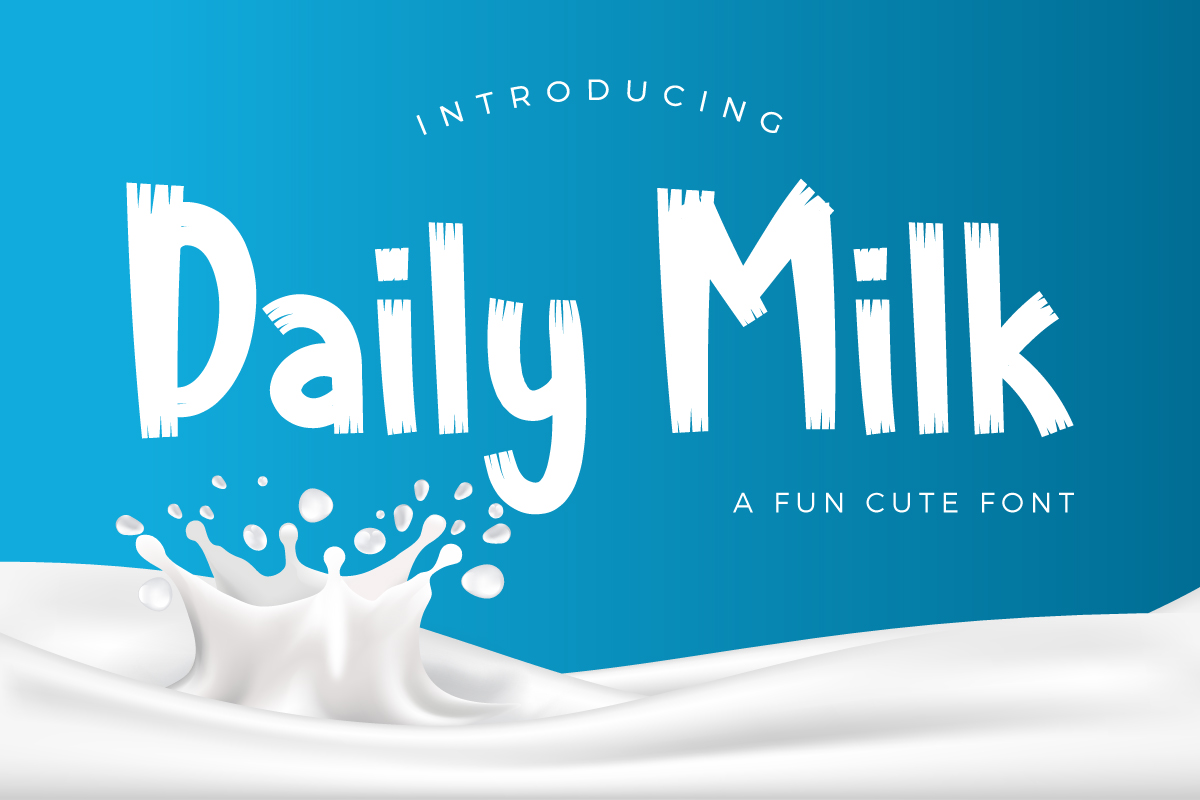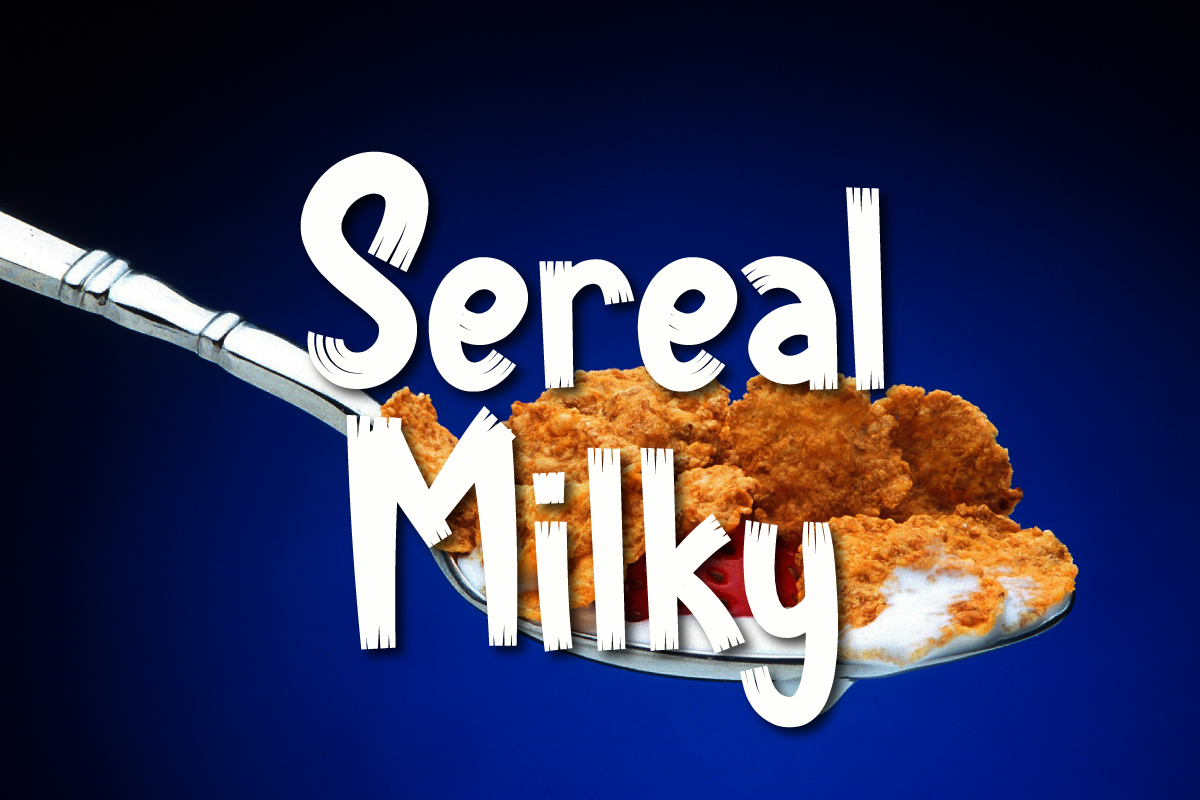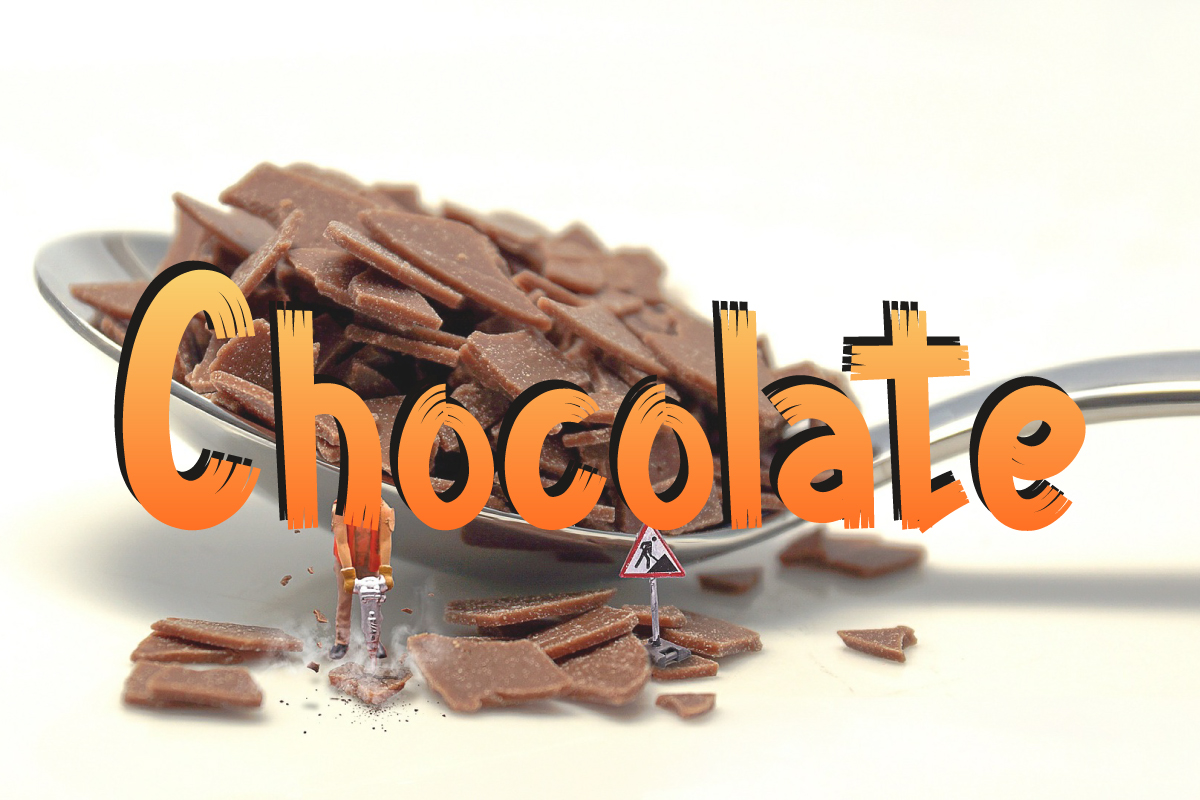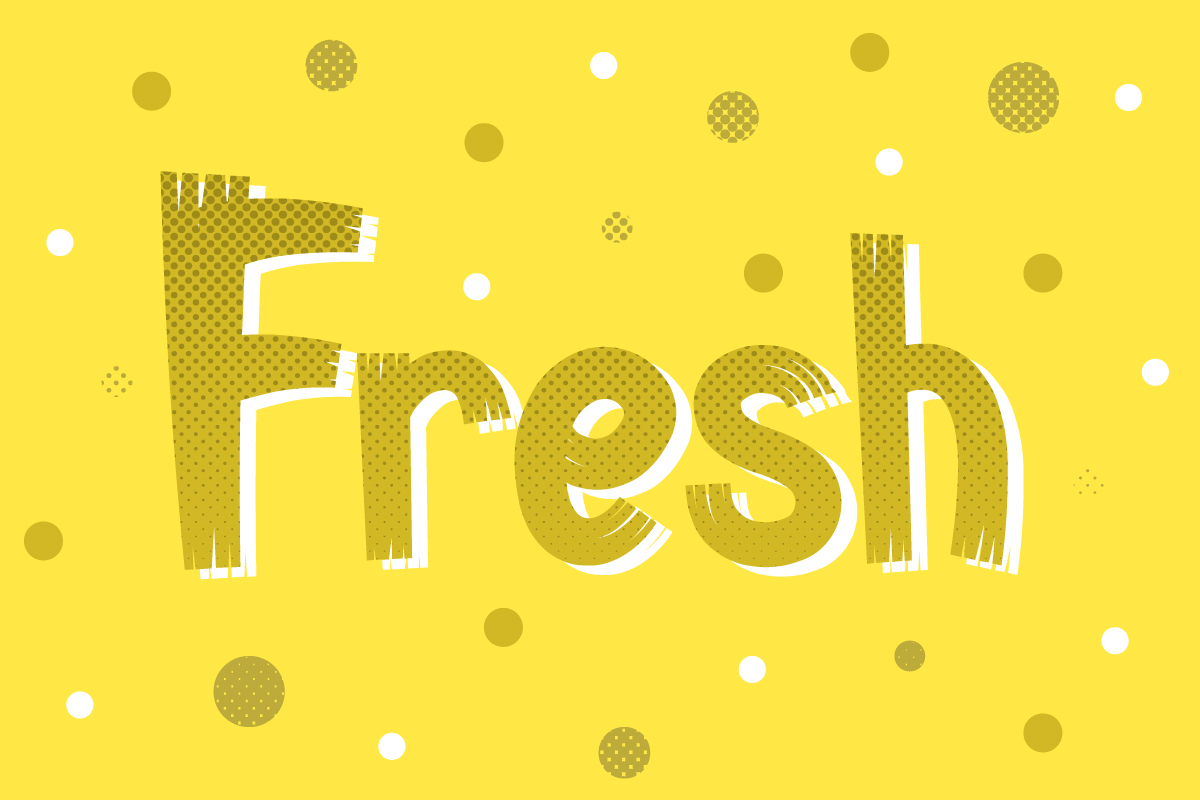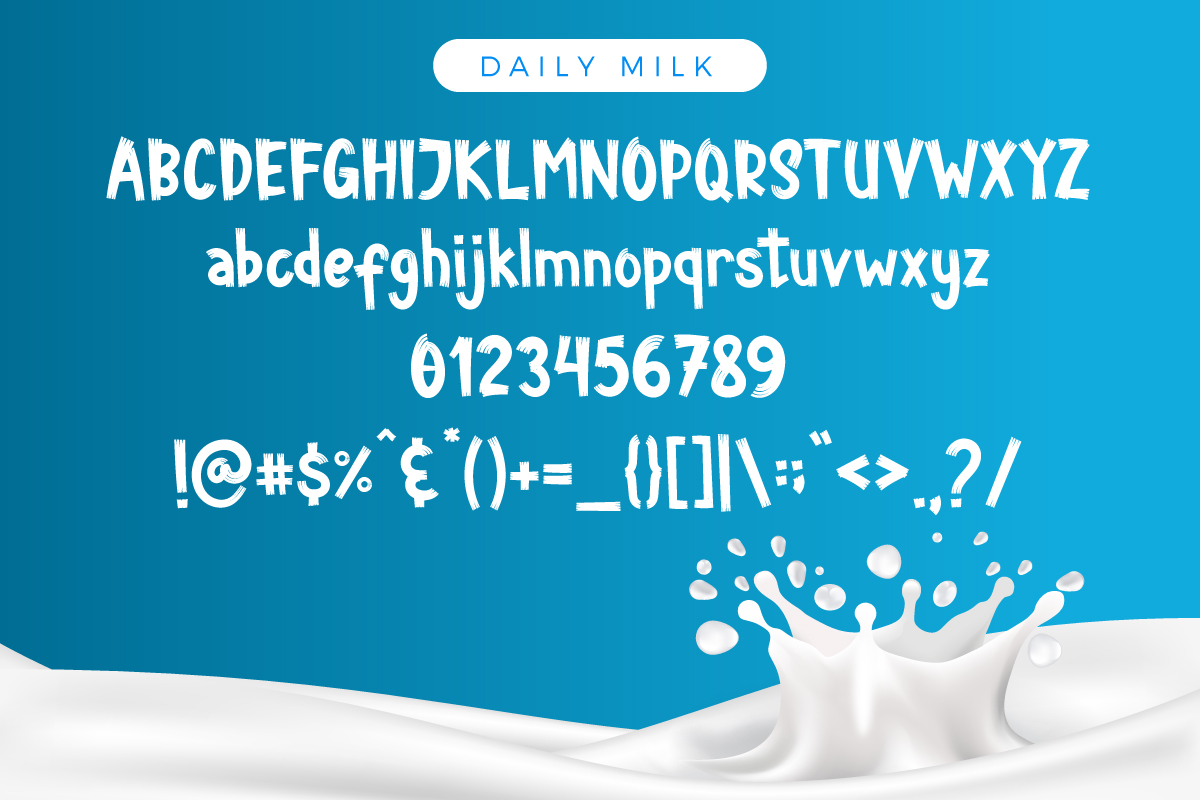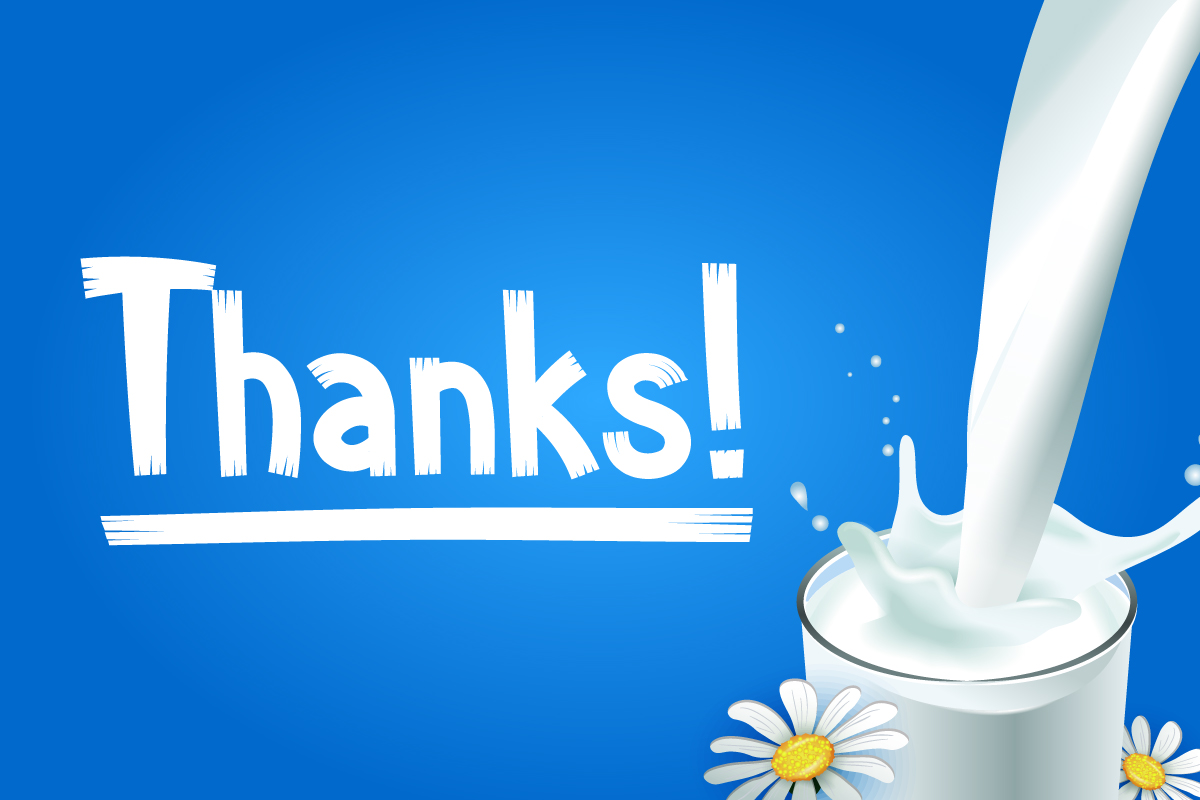
Daily Milk Font
About Daily Milk Font
Daily Milk is contemporary brush font, with the look of a equally measured brush strokes carefully made into a font. Daily Milk is contemporary and jovial, the perfect choice to brighten up your projects.